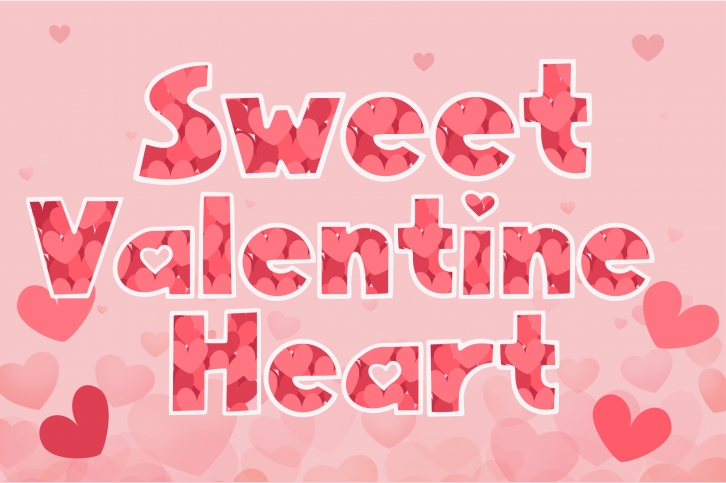
“Sweet Valentine Heart” is a lovely and beautifully designed color font. The font is hand drawn and the letters are full of patterns that represent the day of love, Valentine’s Day. This font can be used in a variety of ways and will make your work look super cute!